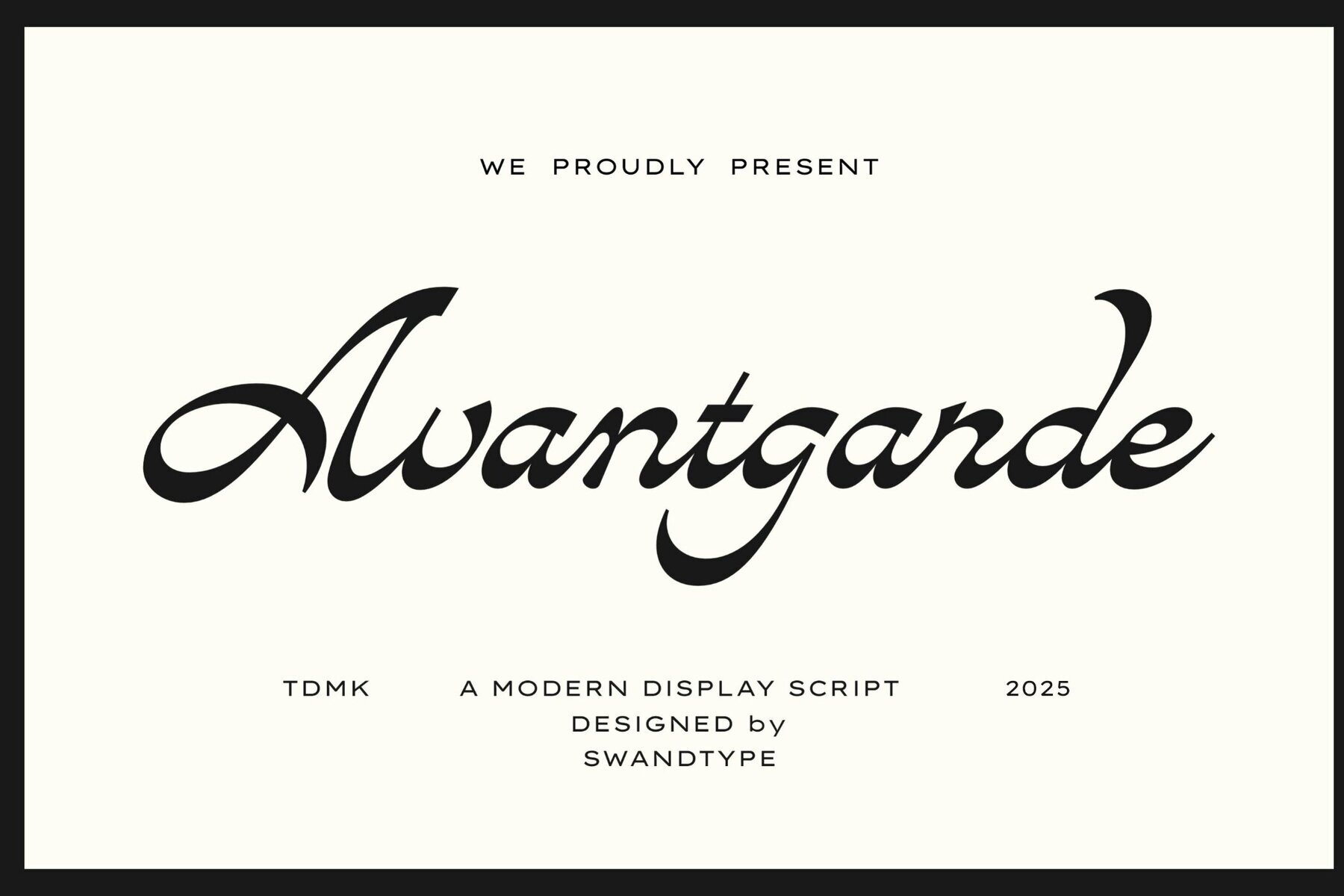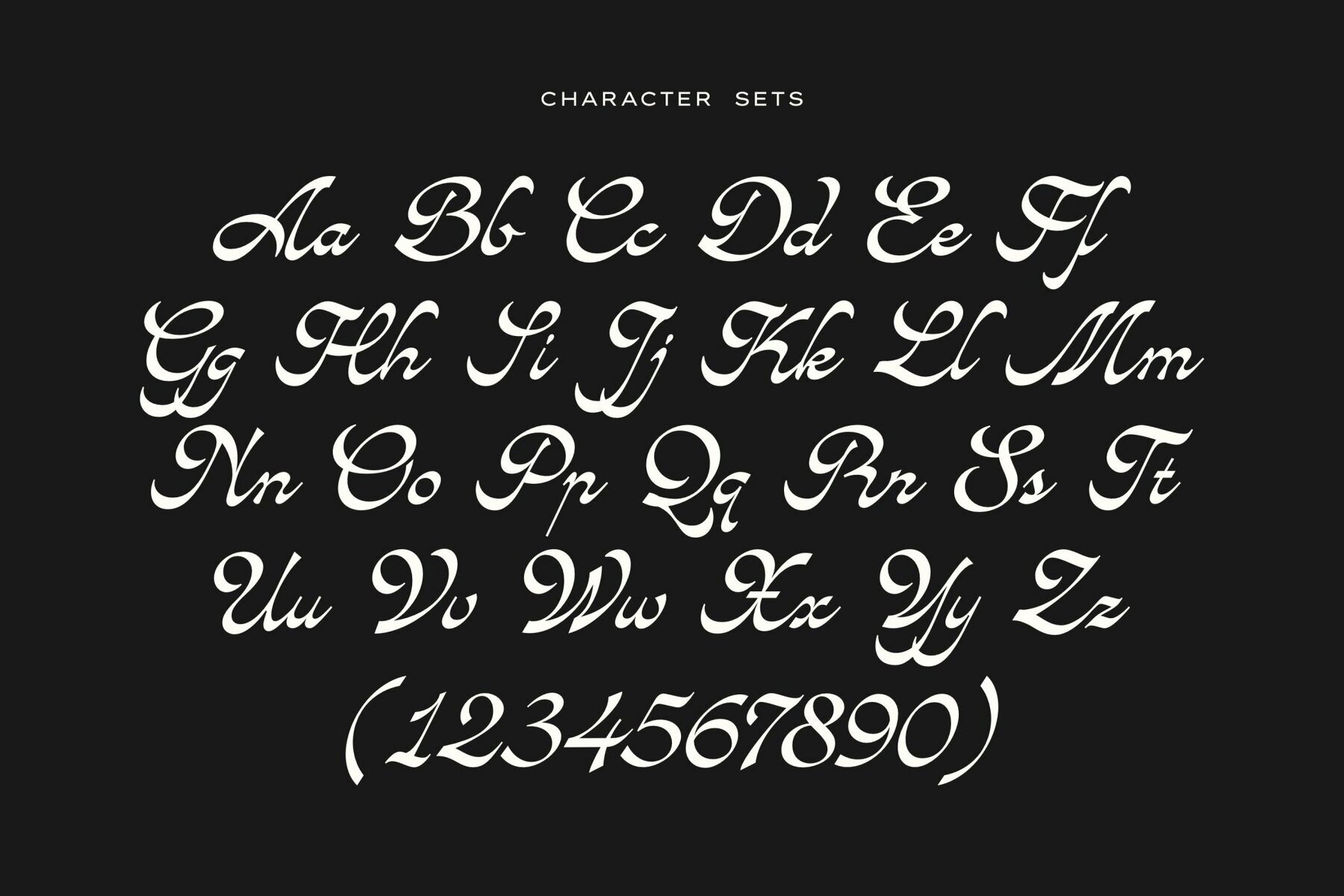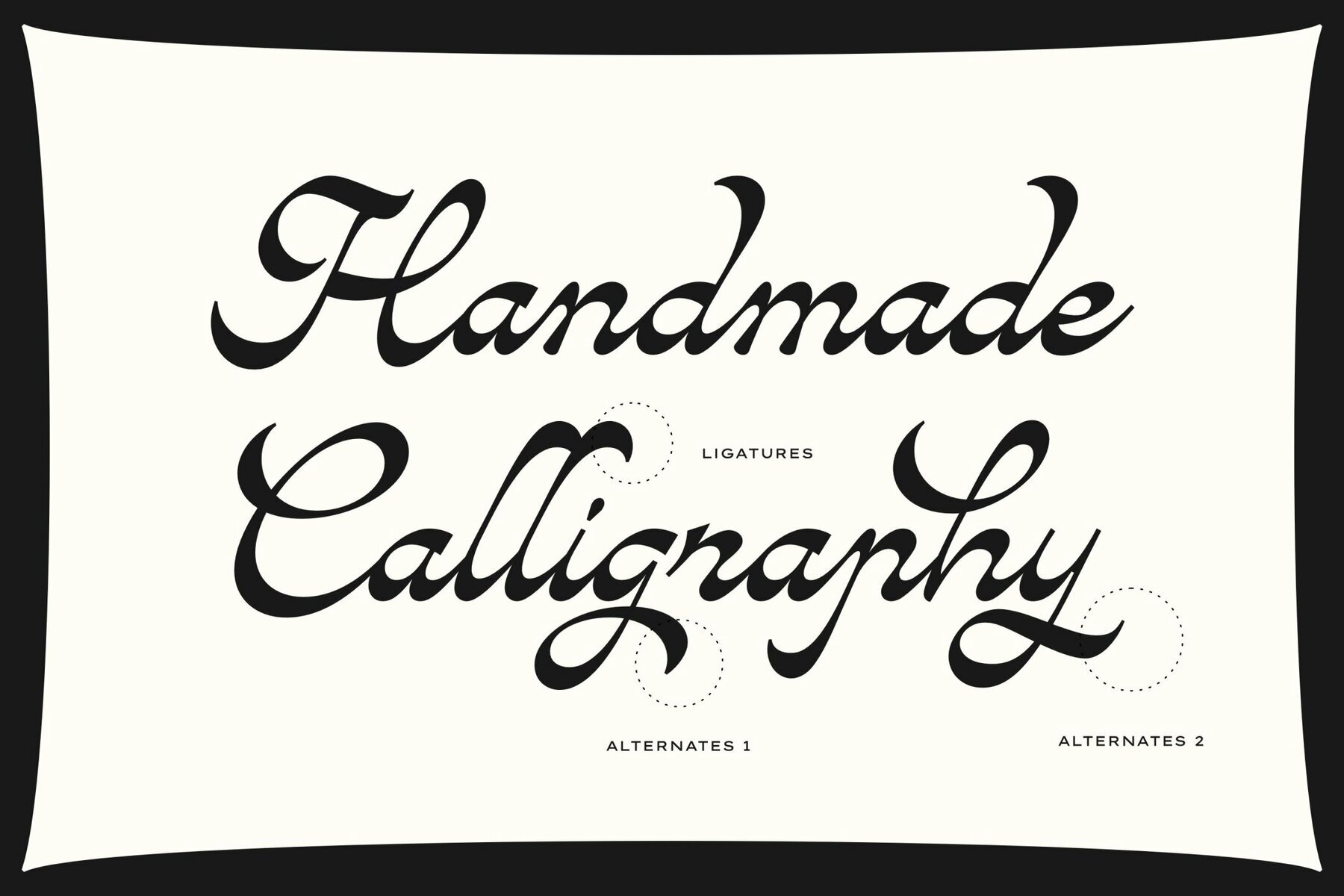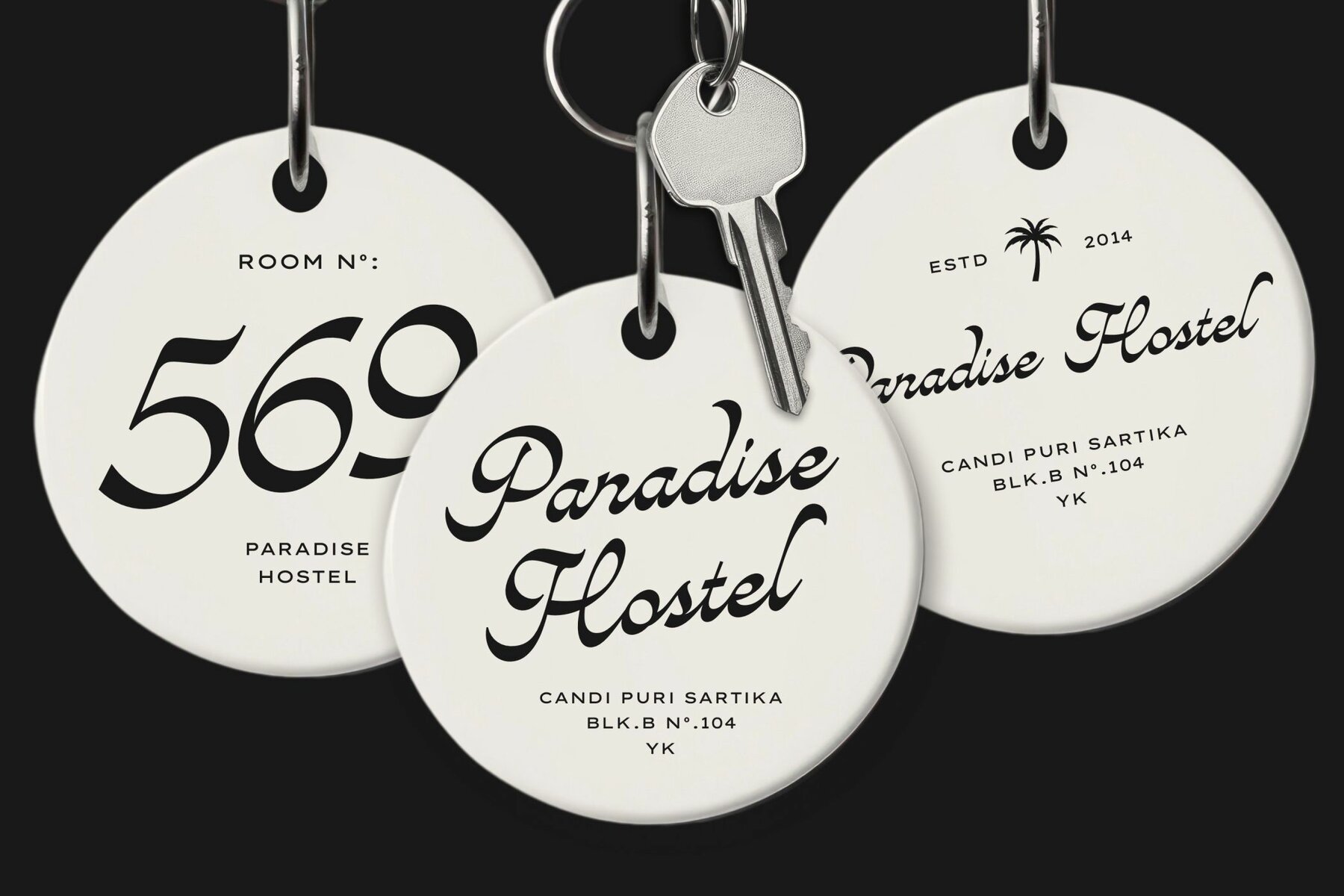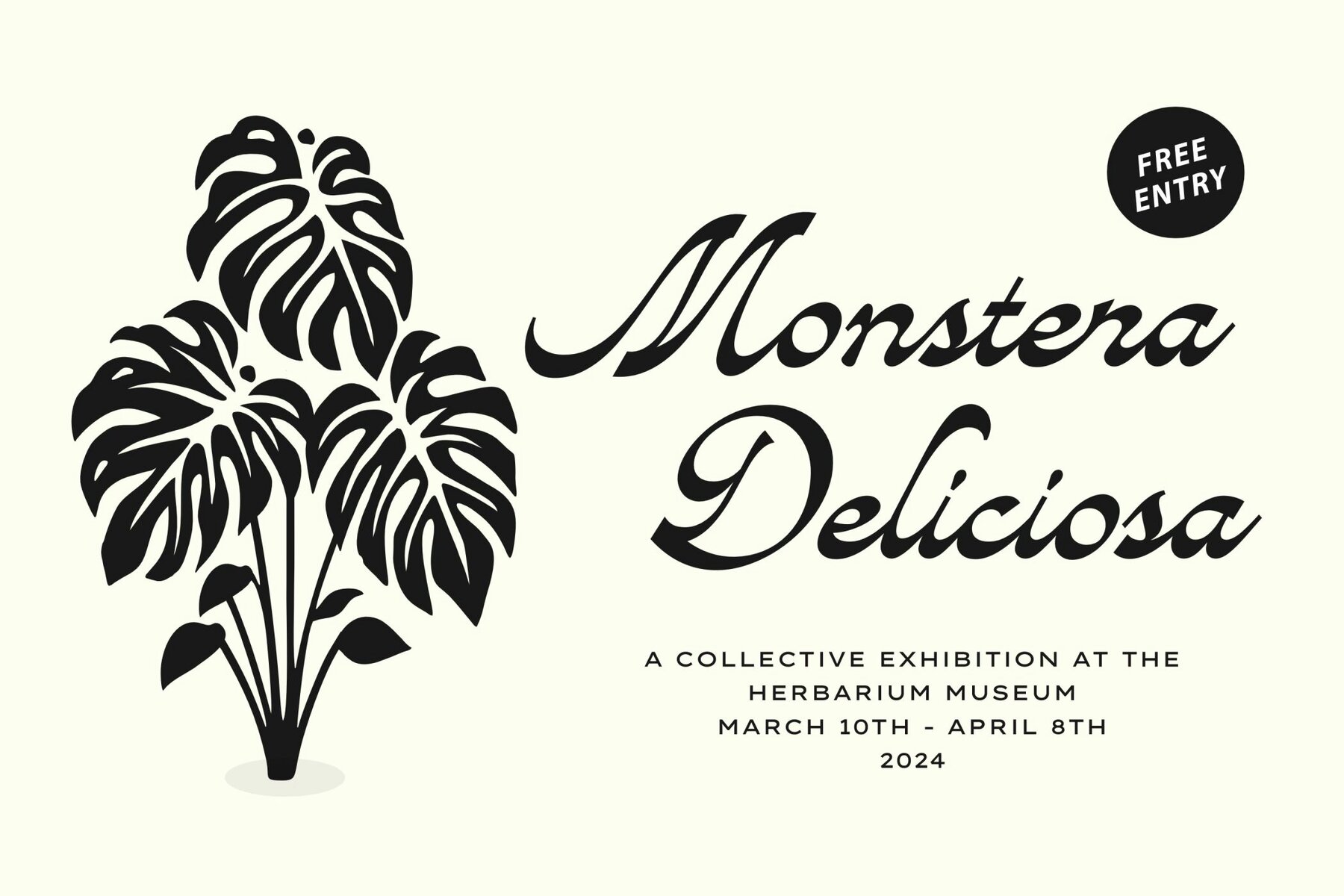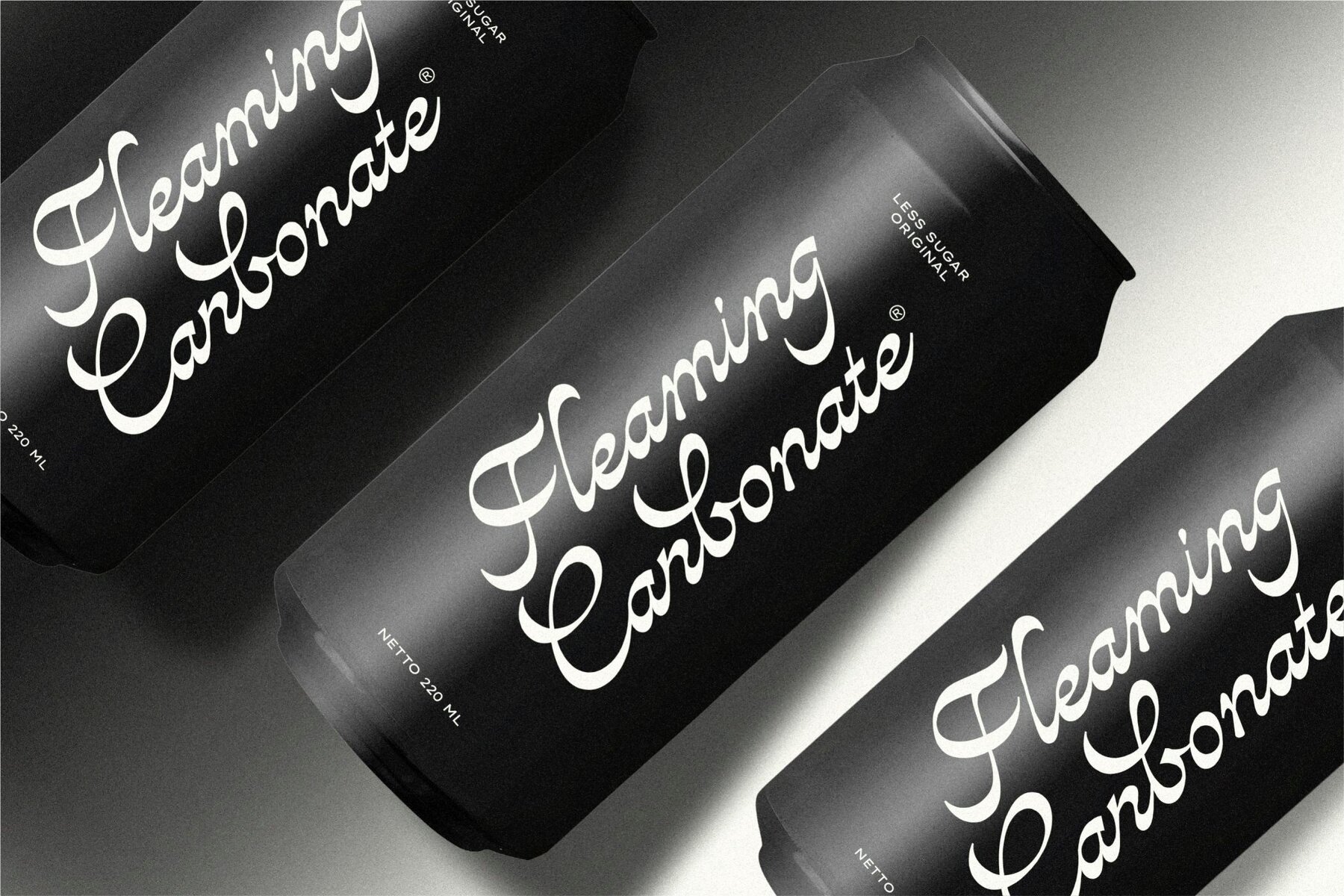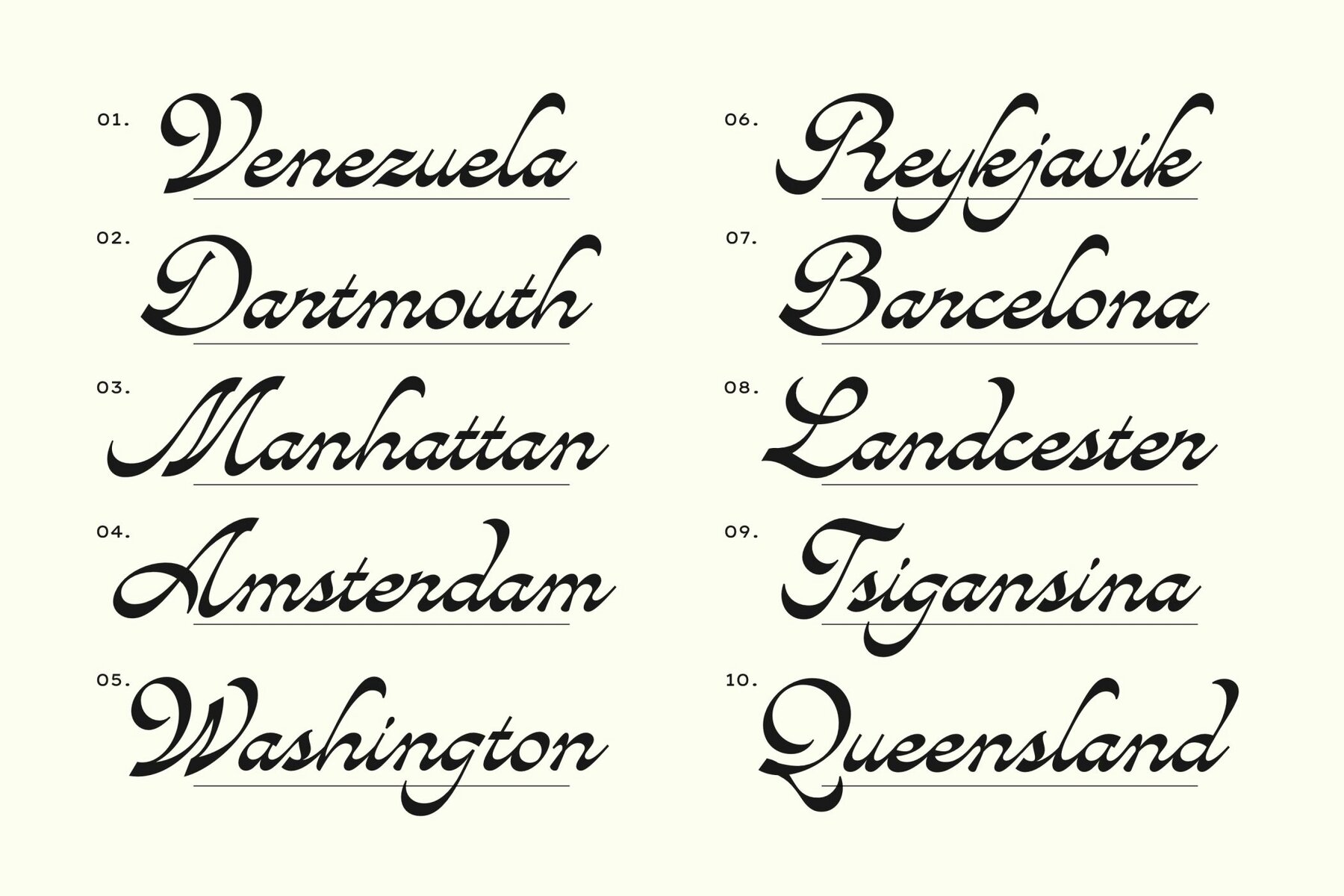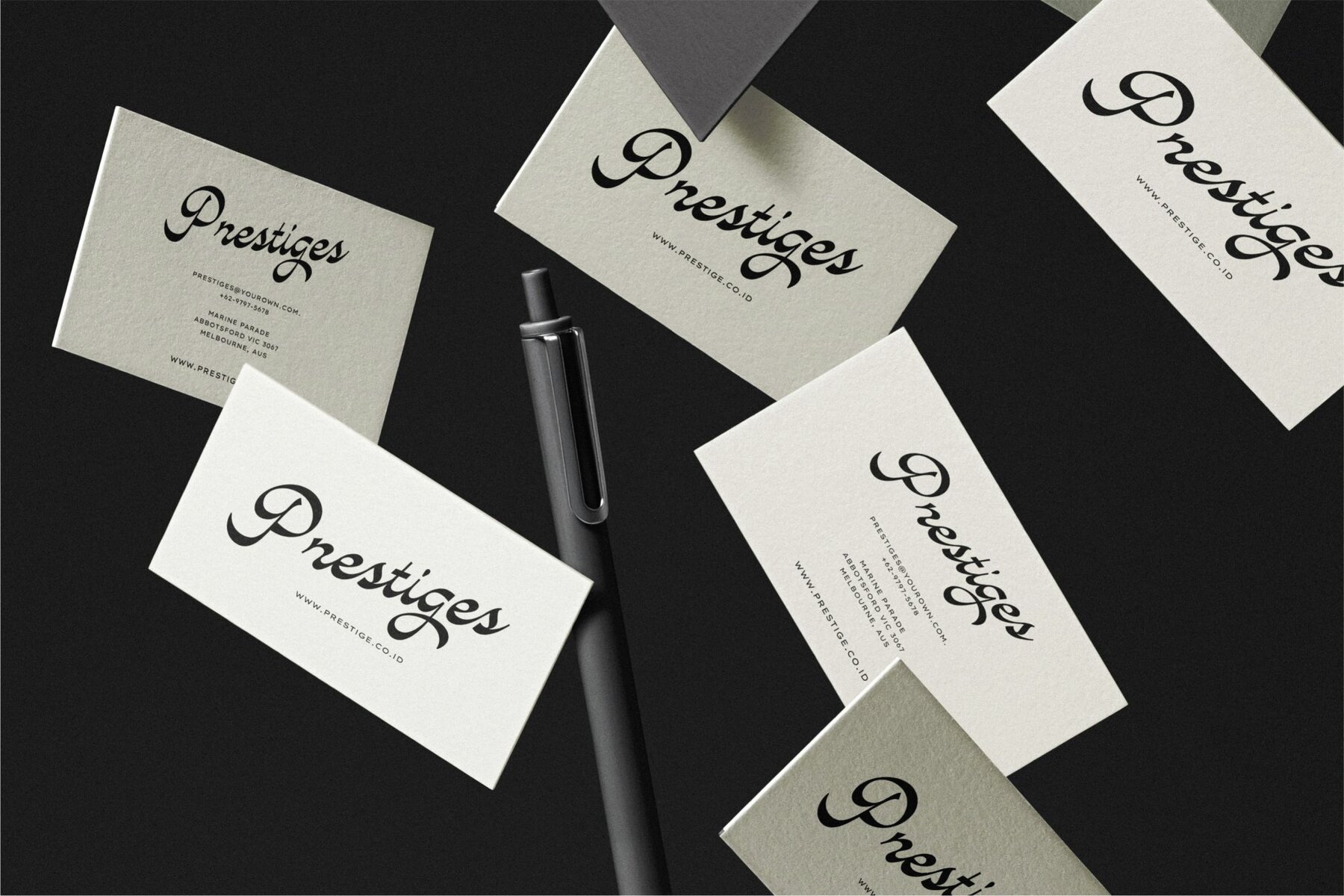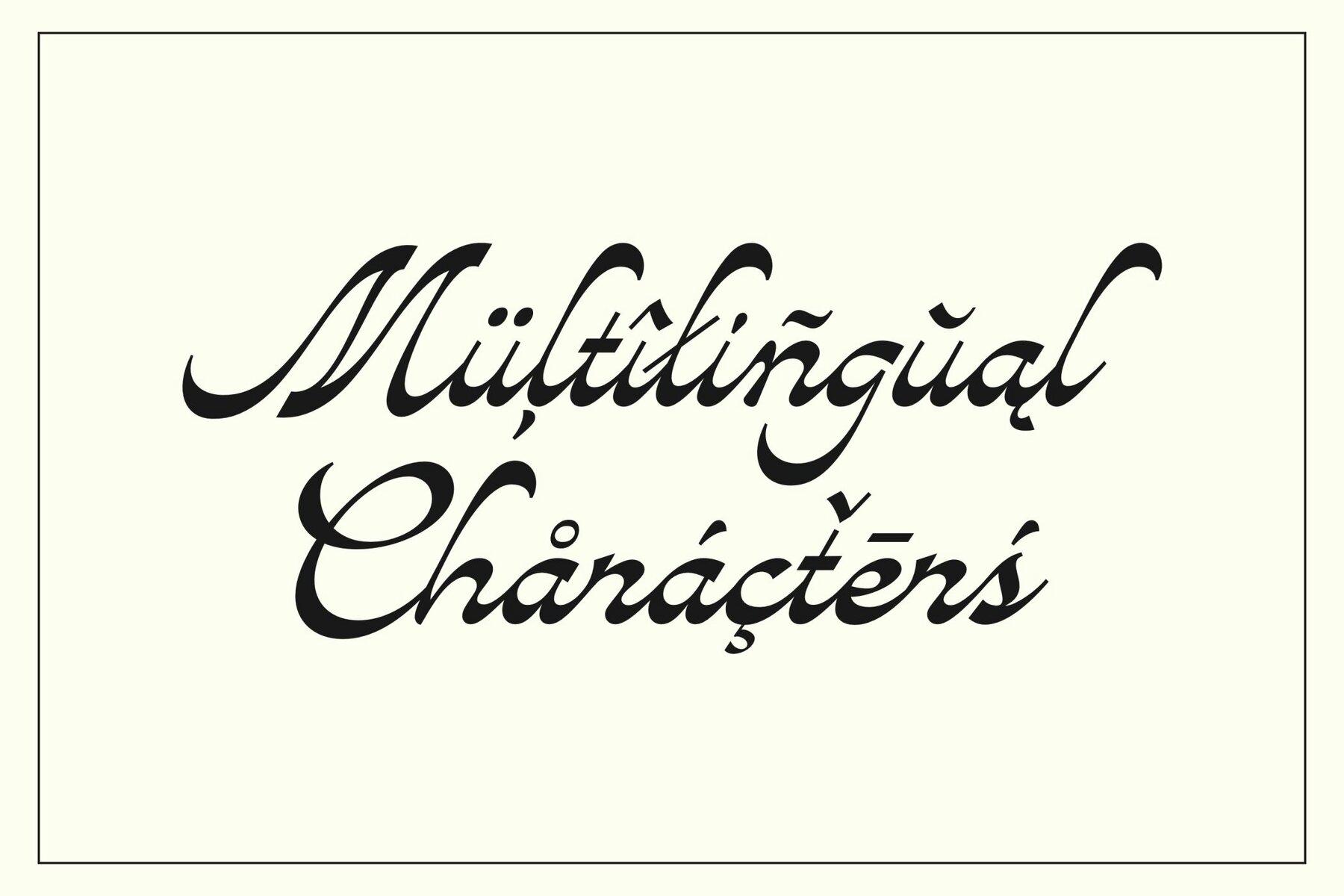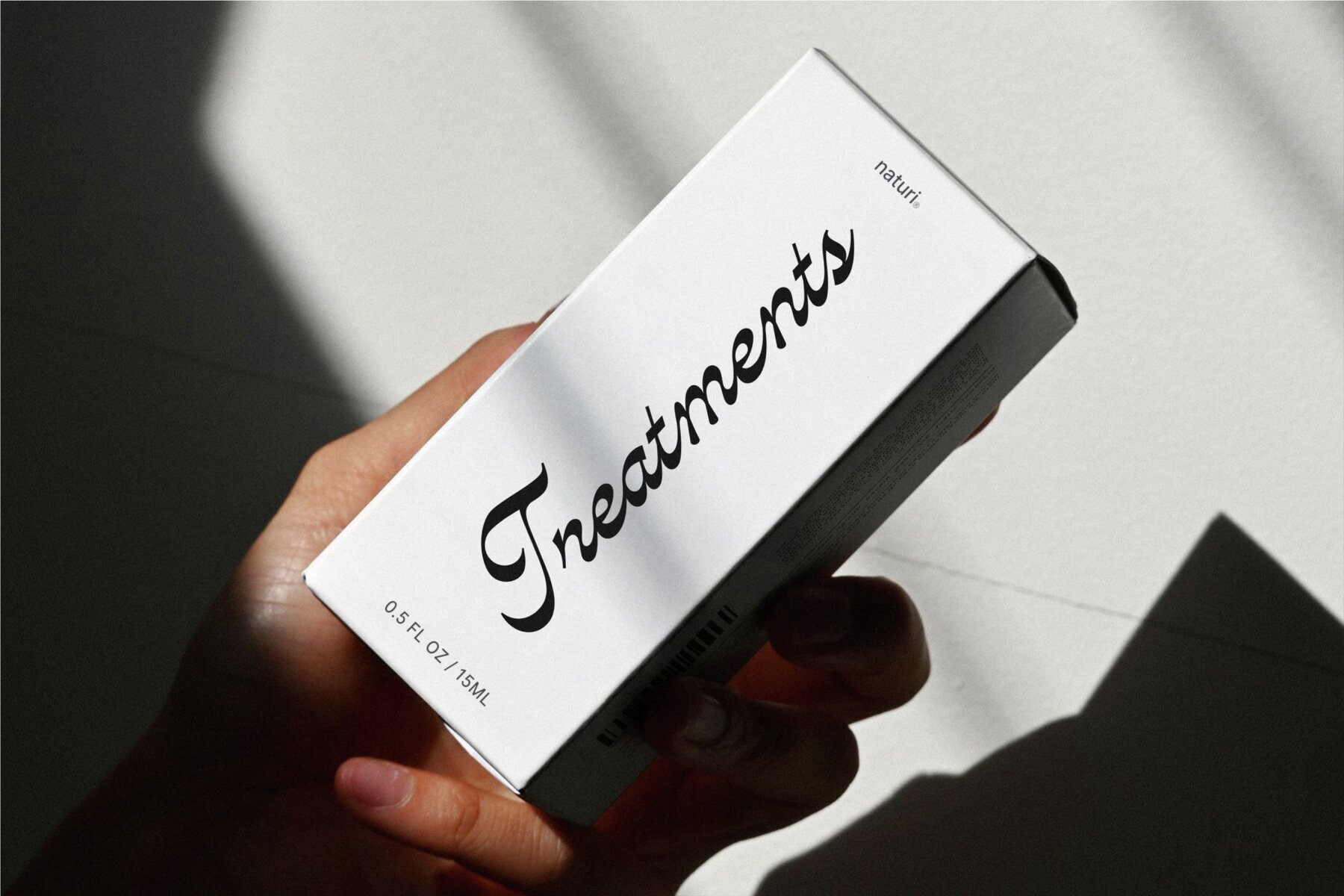
Avantgarde Font
Avantgarde Regular
Avantgarde offers a contemporary touch with its stylish script, complete with stylistic alternates for added flair. This versatile font effortlessly complements diverse design needs, from headline creation and logo design to clothing branding and product packaging. Its elegant strokes make it an ideal choice for magazine headers or as a chic text overlay on background images.Avantgarde: Modern Script for Sophisticated Design